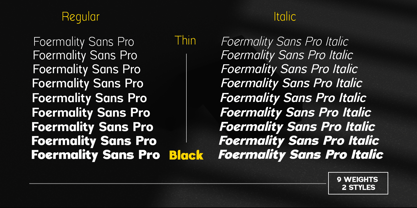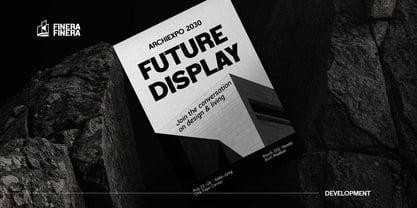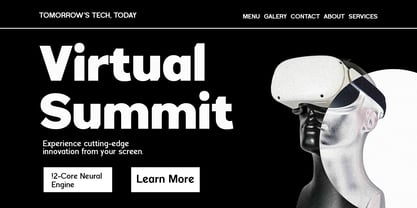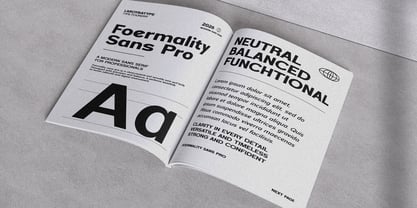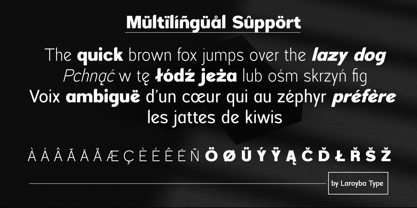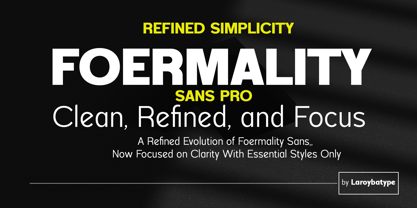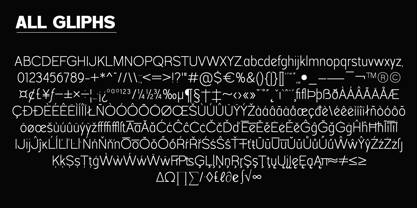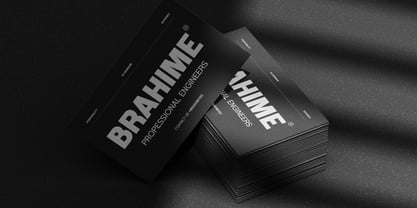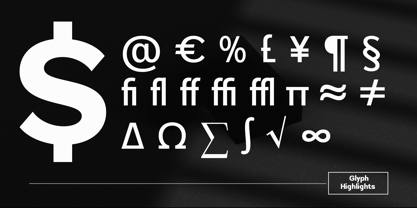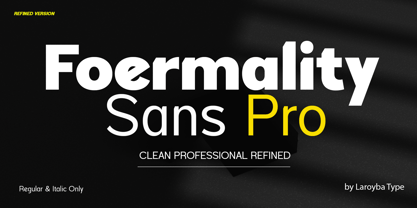
Foermality Sans Pro
by Laroyba Type
The Foermality Sans Pro Font Family was designed by Habib Abdur Rofi and published by Laroyba Type. Foermality Sans Pro contains 18 styles and family package options. More about this family
Foermality Sans Pro is a refined evolution of the original Foermality Sans, redesigned with a cleaner and more focused approach. While the previous version explored a wide range of stylistic variations, this Pro edition embraces simplicity—offering only the essential styles for a more consistent and professional look.
Carefully crafted with improved clarity and balanced proportions, Foermality Sans Pro is built for modern branding, editorial design, and corporate communication. Its minimal and polished appearance ensures excellent readability while maintaining a distinctive and elegant personality.
This version comes with Regular and Italic styles, providing just the right amount of flexibility without unnecessary complexity.
Equipped with extended Latin Pro character set, it supports a wide range of multilingual languages, along with thoughtfully designed ligatures and essential glyphs for professional use.
Foermality Sans Pro is a typeface that reflects clarity, precision, and refined simplicity—perfect for designers who value clean and purposeful design.
Designers: Habib Abdur Rofi
Foundry: Laroyba Type